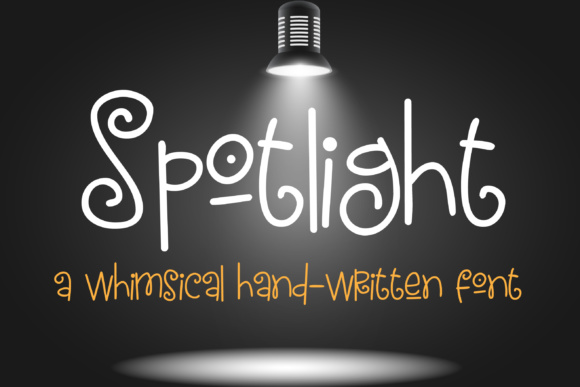
Spotlight Font - Bask in the Radiance of Enchanting Script
Unleash your creative spirit with Spotlight Font, a whimsical and enchanting script font that will add a touch of magic to your designs. Handcrafted with love and attention to detail, Spotlight Font features elegant curls and intricate details that make every word a captivating work of art. Perfect for display boards, posters, logos, and other eye-catching projects, Spotlight Font is the missing piece to your creative arsenal.
Step into a world of wonder with Spotlight Font. Its unique letterforms dance and sway, evoking a sense of joy and playfulness. Each character bursts with personality, inviting you to explore the limitless possibilities of visual communication. Whether you're a seasoned designer or just starting your creative journey, Spotlight Font is your ticket to extraordinary typography.
Indulge in the beauty of Spotlight Font. Its script style is both timeless and contemporary, making it perfect for a wide range of projects. Whether you're creating wedding invitations, social media graphics, or branding materials, Spotlight Font will add a touch of sophistication and elegance that will leave a lasting impression.